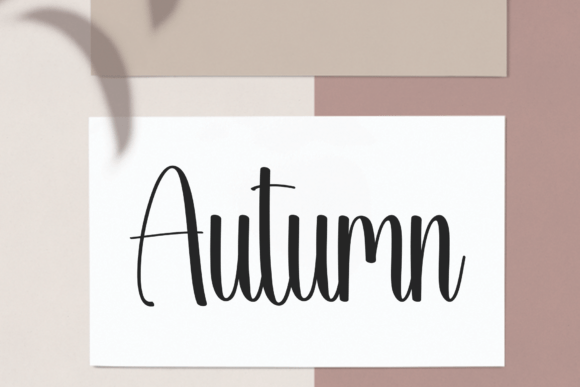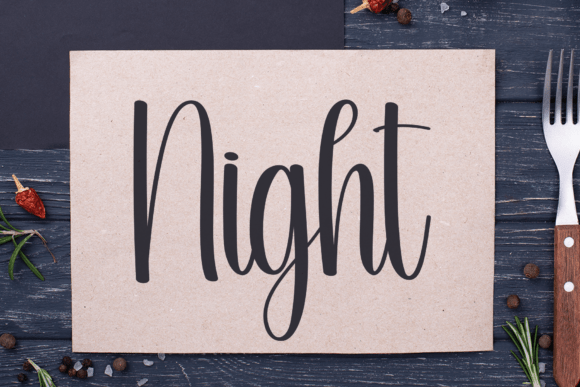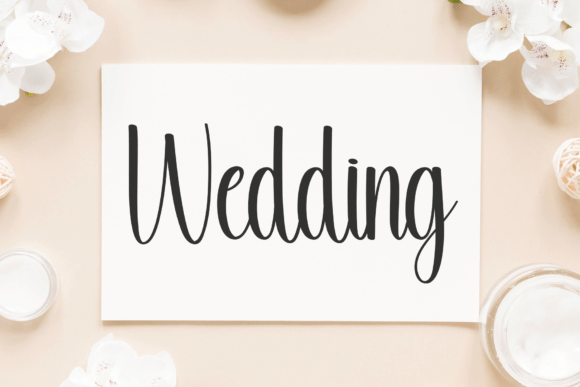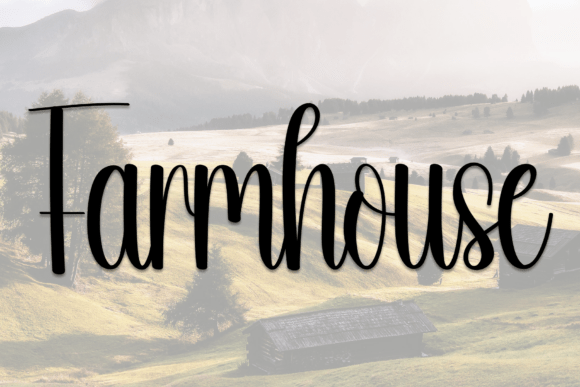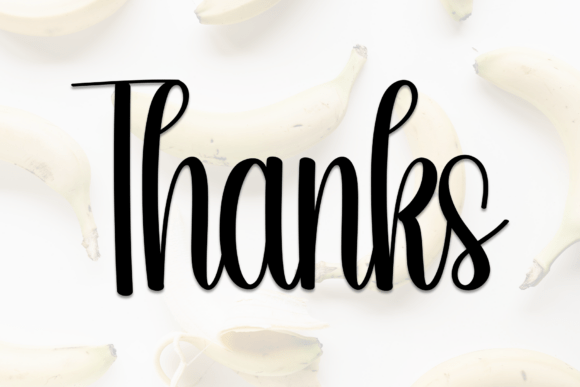
The Perfect Blend of Casual and Elegant: Unveiling the Banana Font
Who hasn’t been stuck in a creative rut, staring blankly at a blank page, waiting for that elusive spark to strike? For designers, this moment is all too familiar. But what if I told you that the solution lies in a font so effortlessly cool, it’s like drawing with a marker? Welcome to the world of Banana Font, where the lines between casual and elegant blur to create a truly unique visual identity.
With its relaxed and sporty feel, Banana Font is the perfect addition to any design project. Whether you’re crafting a brand identity, designing a wedding invitation, or creating a marketing campaign, this font is sure to elevate your design game. Its versatility makes it a valuable asset for designers, allowing them to convey a sense of luxury and elegance while still maintaining a casual, approachable vibe.
Banana Font Key Features
- Unique Characteristics: Banana Font features a distinctive, cursive script style with a natural, handwritten feel, making it ideal for creative and artistic applications.
Design Review: Banana Font
When I first laid eyes on Banana Font, I was immediately struck by its playful and whimsical vibe. The rounded shapes and curved lines give it a friendly and approachable feel, perfect for use in children’s books, food labels, or any project where you want to convey a sense of fun and approachability. ✨
The Banana Font also has a nice range of weights and styles to choose from, allowing you to customize the look to fit your specific design needs. I particularly like the bold and italic styles, which add a nice level of sophistication to the font. ✨
While Banana Font is a lot of fun to use, it does have some limitations. One of the main issues I have is with the font’s x-height, which can sometimes make it difficult to read at smaller sizes. ⚠️ This is particularly noticeable in body text, where the smaller x-height can make the text appear more cramped and harder to read. ⚠️
Additionally, the font’s curvy lines and rounded shapes can sometimes make it difficult to use in situations where a more traditional, serif font is called for. For example, using Banana Font in a formal or professional setting may not be the best choice. ⚠️
Overall, I think Banana Font is a great choice for designers looking to add a playful touch to their projects. While it may not be the best choice for every situation, it’s a versatile font that can add a lot of character to your designs. With a little care and attention, Banana Font can be a valuable addition to any designer’s toolkit.
Recommendation
- Use Banana Font for children’s books, food labels, or other projects where you want to convey a sense of fun and approachability.
- Choose the bold and italic styles for added sophistication.
- Avoid using Banana Font in formal or professional settings.
For a unique look, pair Banana Font with bold colors and playful illustrations.
For a professional look, combine Banana Font with crisp graphics and clean lines.
For a fun and playful presentation, pair Banana Font with colorful graphics and animations.
Banana Font is perfect for:
- Children’s products and packaging
- Playful advertisements and marketing materials
Remember to use Banana Font consistently throughout your design to create a cohesive and recognizable brand identity.